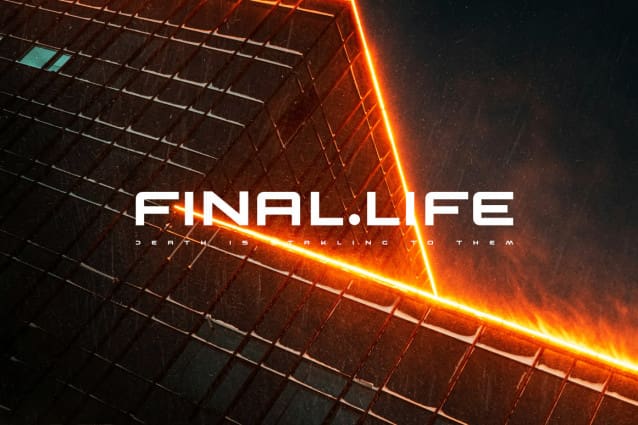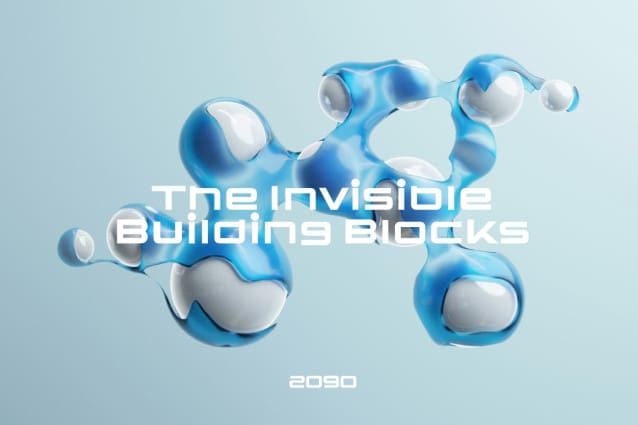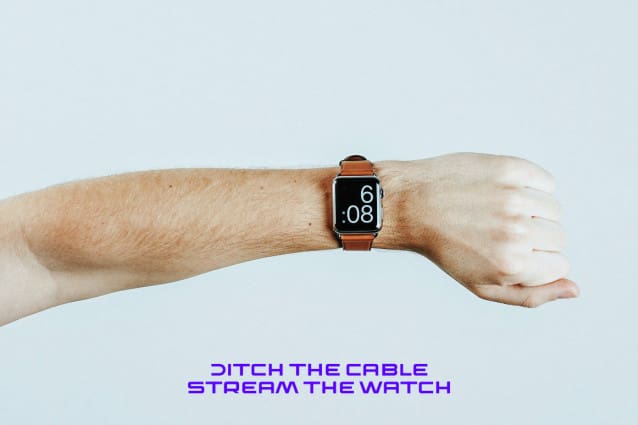
Fear Robot Font
Fear Robot Font is ideal for projects related to technology, artificial intelligence, robotics, futuristic themes, sci-fi literature, and digital innovation. Whether used in digital interfaces, branding materials, or promotional campaigns, this font adds a touch of sophistication and cutting-edge flair to any design.